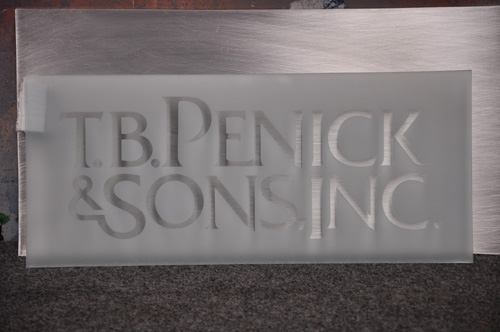
In the architecture drawings of a new building for the Salvation Army is a big glass panel above the main entrance planned.
The wish is to color the complete glass and the text will stay transparant.
I have a kind of splashback technique in my head, but do not know how that is normally done.
Goldreverre has some nice exsamples:
Splashbacks.
I think this is done with sponges and dapping (maybe transparant) paint on and gild the open spots....
Doing glass signs with faux finishes or glass panels with elaborate backgrounds can be tricky business. As you can see on his website he has mentioned a disclaimer on how his product can appear differently in certain conditions. Plan carefully your idea to leave the text clear so that you don't wind up with something that works and reads really well in one condition, but goes completely wrong when lighting or reflections create havoc. I deal with this issue on many projects and it can involve a lot of thinking and prototyping. I had a job where a lobby glass sign had to read well against a brushed anodized aluminum panel in backlit as well as reflected light and the client did not want a paint fill on the letters. The deep sandcarved letters just vanished against the bright brushed aluminum. I came up with the solution to lightly spray the carved text with light blue metallic aluminum paint. This allowed the text to glow with the backlit light and at the same time the sparse mist of metal flakes reflected the ambient light. I have used this method to sell recent jobs as well.
Was this a tyransparant paint or just very lightly airbrushed on?
Have you any idea how he gets the shinny effects?
The metallic paint was opaque Krylon spray paint, in just lightly applied coating.
As far as shiny effects, you have a vast amount of materials to experiment with like colored mica powders, leaf metals, metal powders, foils,
glass frits and stringers, colored epoxies, two part metal patinas, and air dry glass enamels. Also you can texture or carve the glass before the coloring by sandblast texturing or kiln forming. There are more ways to decorate and form glass nowadays than ever, in hot and cold techniques.
When doing cold techniques on splash backs, it is wise to seal the work with a proven sealer to protect it from water invasion.
Did you get a photo what your talking about ? I have a similar situation going on right now. No Back lighting, just reflective light. Some times you can see the lettering great something not.
In this case it's the lettering that's a problem not the Background
I wonder what they expected. Gray on gray can be a bit hard to read.
If they want better contrast, you'll most likely have to spray a colored glaze over the sandblasted background. ....but I don't know.........
Or?................
Sorry Rod, even though I have added to the job several times I have not thought to take photos.
Your job is problematic. It looks by the shadows in the letters that the etching is on the first surface (front surface) so there
will always be the "shadow thing" going on. Otherwise I would suggest adding a color or patina to the brushed metal in the exact letter
openings to create a stable contrast. I would almost suggest having a copy of the text water jet cut out of a contrasting brushed metal and
gluing those letters over the existing clear text. The dimension factor would make it pop. Otherwise you could etch a new glass from the second surface side and then color the letters thus avoiding the shadows.
The best thing for you to do is experiment and see what you come up with.
This one was made with fast size and a sea sponge, as well as inks, asphaltum and one shot. I used some skewings as well as some copper leaf and full sheets of gold.